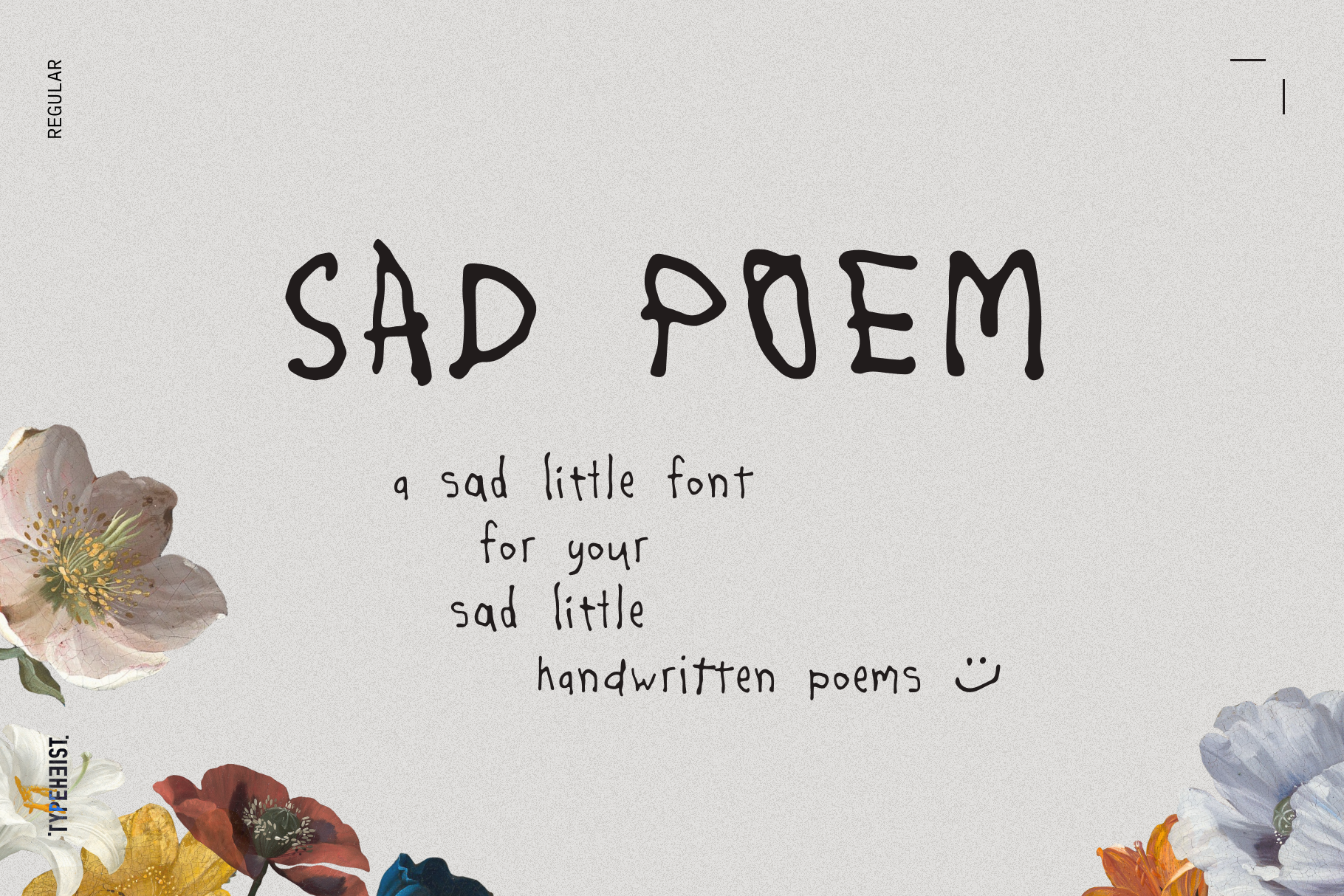
Sad Poem Messy Handwriting Font
A sad little font for your sad little handwritten poems :') Get it all out on the page with this somber script that doesn't really care much for etiquette. Over 360 glyphs grant this font its realistic charm. Pair it with photos, art or sketches and create precious, sad little keepsakes.
- 360+ glyphs and custom ligatures